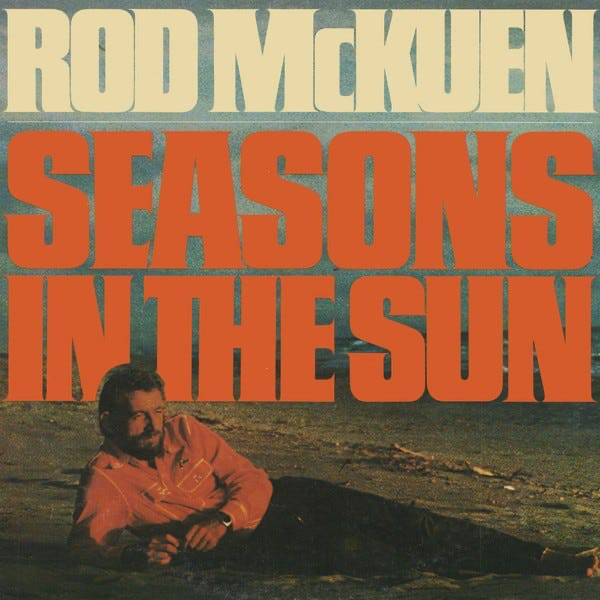
Font finds: bold, elegant, and not just for memes
A roundup of typefaces with interesting stories I’ve found from scouting the internet.
Font finds: bold, elegant, and not just for memes
A roundup of typefaces with interesting stories I’ve found from scouting the internet.